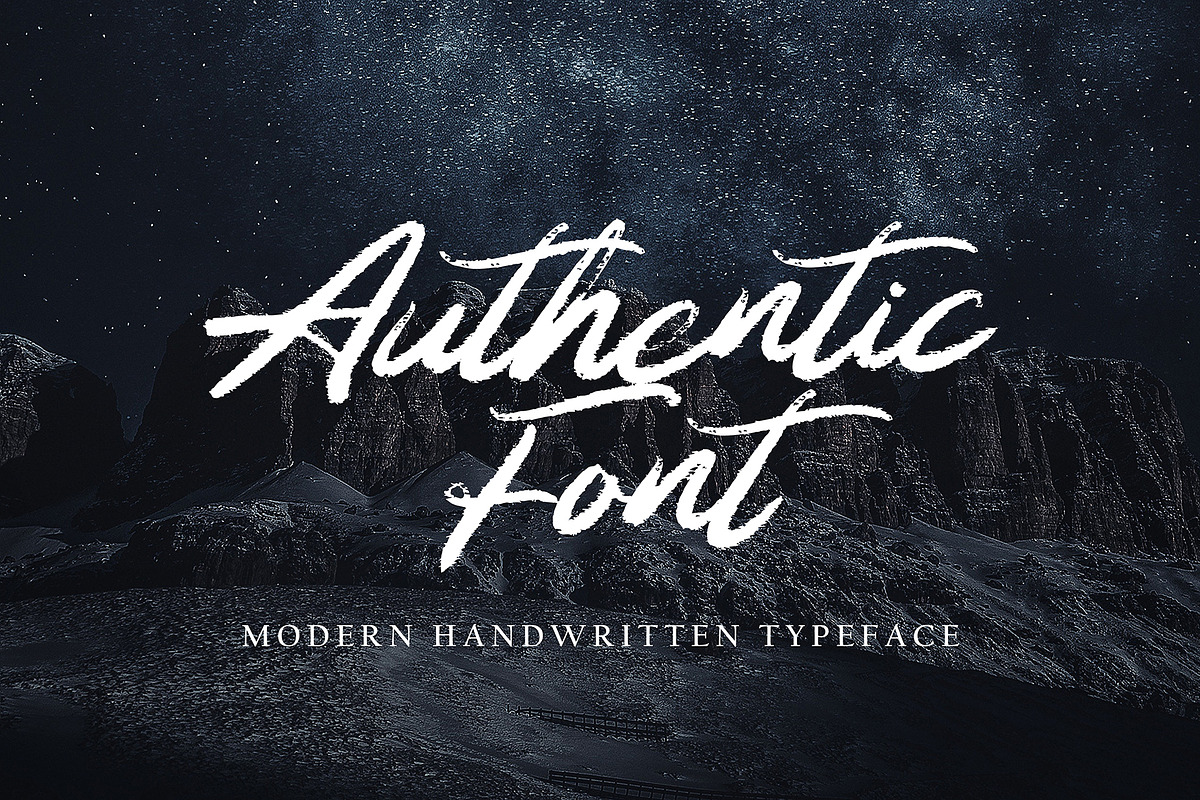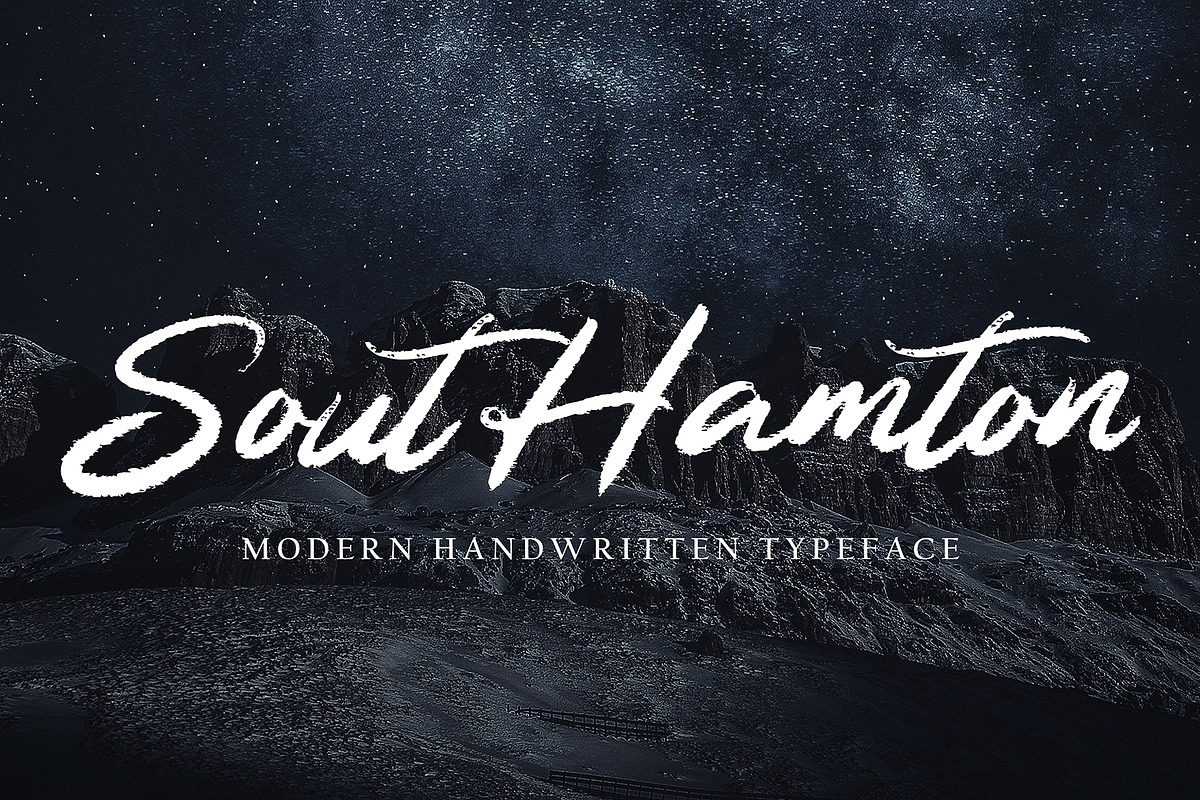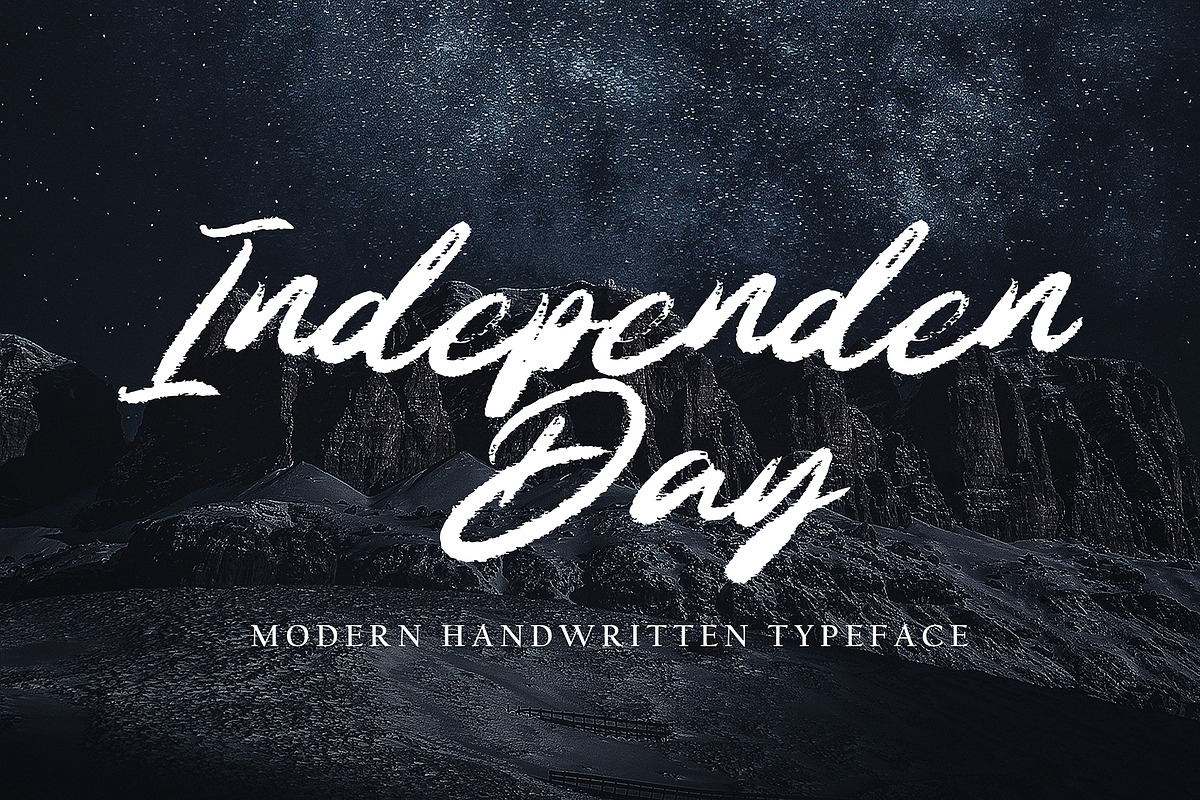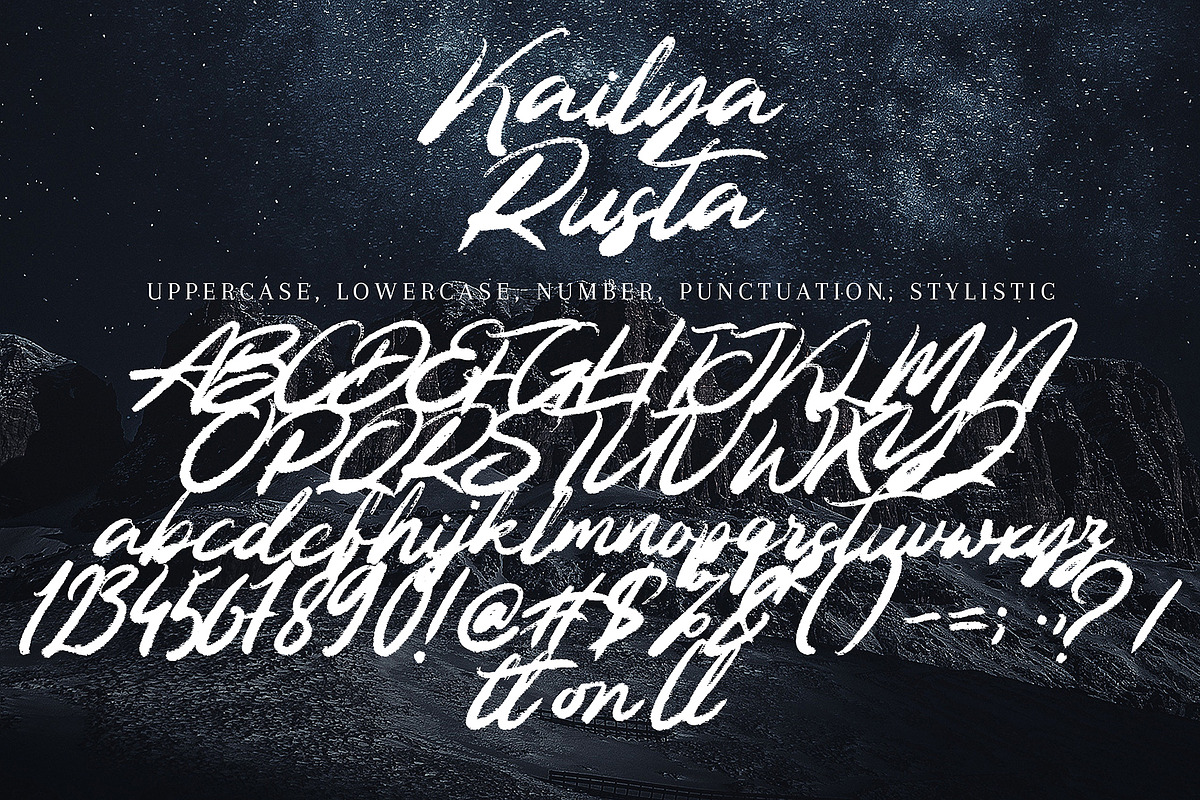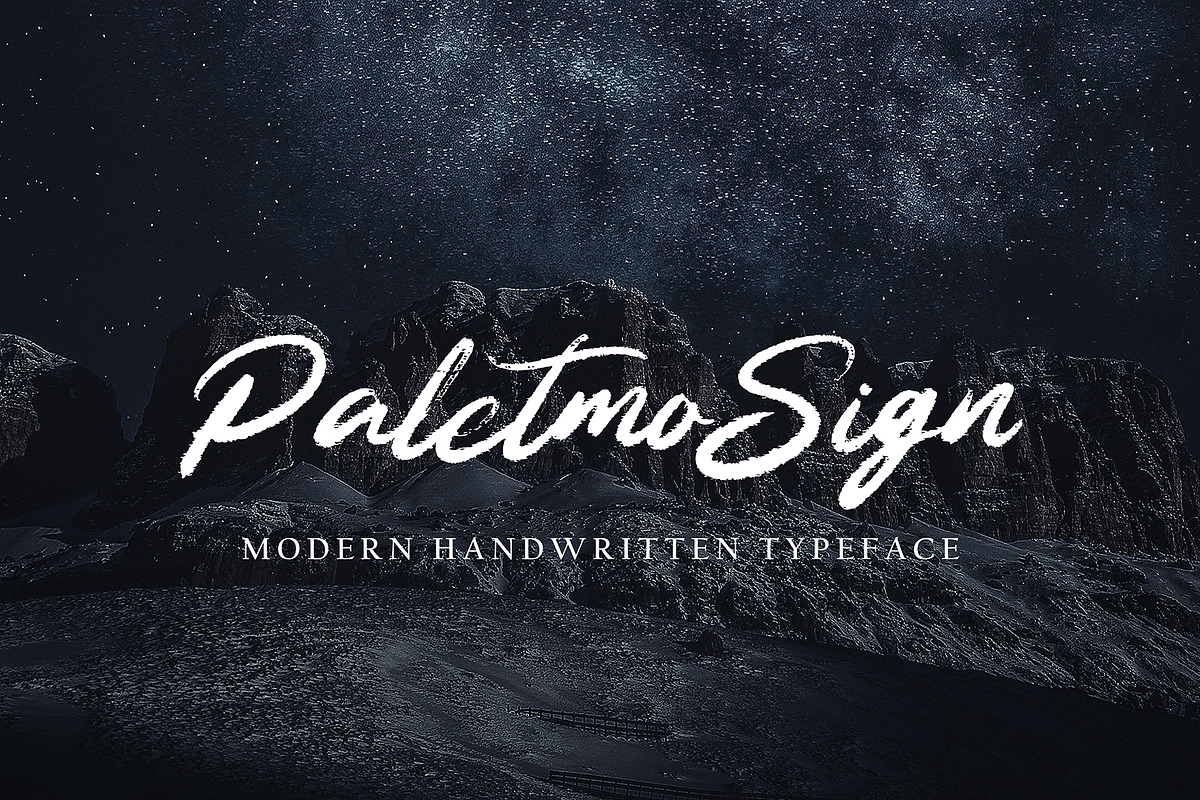
Kailya Rusta
Kailya Rusta with new style, this font will perfect for many different project ex: quotes, logo, blog header, poster, banding, letter, invitation, stationery, etc...